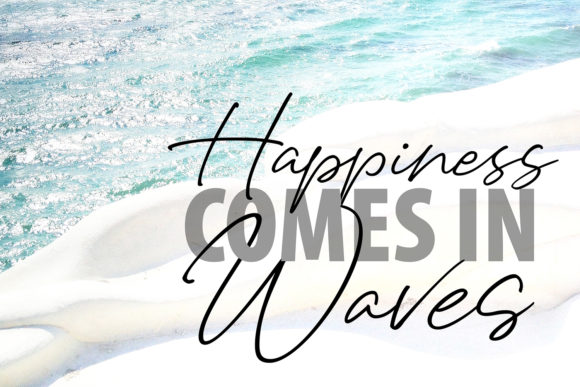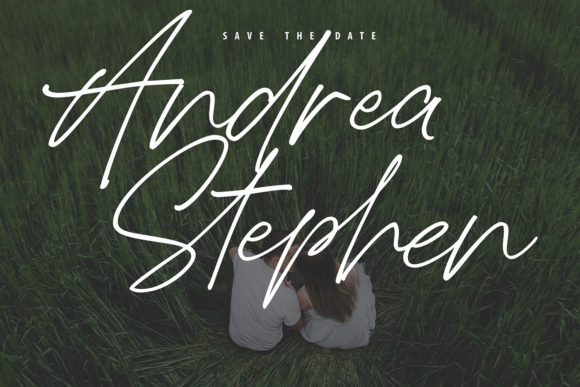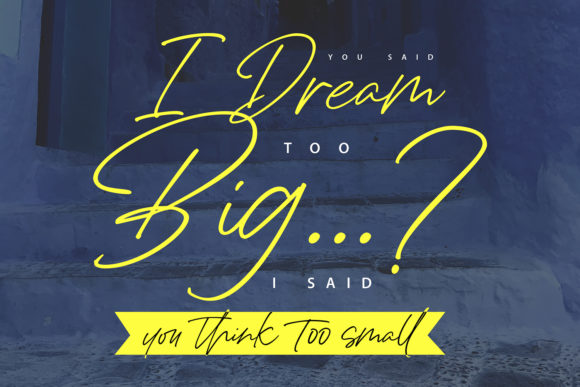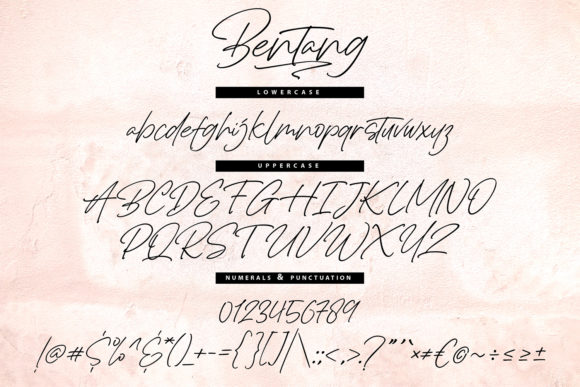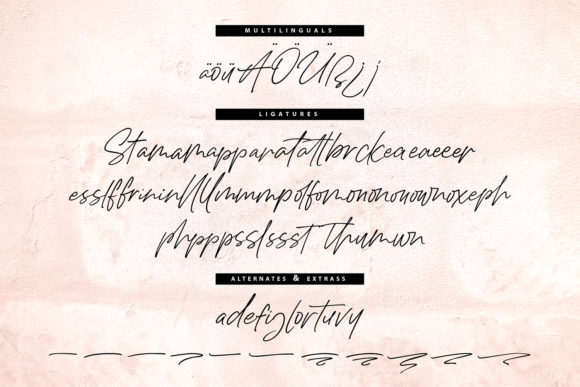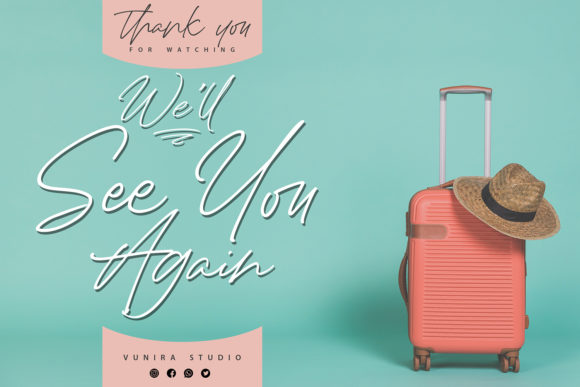
Bentang Font: Elevate Your Designs with this Delightful Handwritten Font
Are you tired of using the same old fonts in your designs? Look no further than Bentang Font, a delightful and flexible handwritten font that’s sure to take your creations to the next level. In this article, we’ll dive into the features and benefits of Bentang Font, and explore how it can become an incredibly valuable asset in your font library.
What is Bentang Font?
Bentang Font is a beautifully crafted handwritten font that’s perfect for designers and crafters looking to add a personal touch to their work. With its unique and elegant style, Bentang Font is versatile enough to be used in a wide range of projects, from branding and advertising to packaging and digital media.
One of the standout features of Bentang Font is its PUA (Private Use Area) encoding. This means that you can easily access all of the font’s glyphs and swashes, giving you complete creative control over your designs. With PUA encoding, you can effortlessly navigate the font’s extensive character set, including ligatures, alternates, and ornaments.
A Font for Every Project
No matter the topic or theme, Bentang Font is an incredibly adaptable asset to have in your font library. Its elegant and approachable style makes it perfect for a wide range of projects, including:
- Branding and logos: Create a unique and memorable brand identity with Bentang Font’s distinctive style.
- Digital media: Add a touch of personality to your website, social media, or email marketing campaigns.
- Packaging: Stand out on store shelves with eye-catching packaging designs that showcase your brand’s personality.
- Stationery: Create beautiful and professional-looking stationery, including business cards, letterheads, and invoices.
Benefits of Using Bentang Font
So why choose Bentang Font for your next project? Here are just a few benefits of using this amazing font:
- Unique style: Bentang Font’s distinctive style will help your designs stand out from the crowd.
- Flexibility: With its PUA encoding and extensive character set, Bentang Font can be used in a wide range of projects and applications.
- High-quality design: Bentang Font is designed to the highest standards, ensuring that your designs look professional and polished.
Who is Bentang Font for?
Bentang Font is perfect for designers, crafters, and DIY enthusiasts who want to add a personal touch to their work. Whether you’re a seasoned professional or just starting out, Bentang Font is an excellent addition to your font library. This font is ideal for:
- Graphic designers looking for a unique and versatile font for their next project.
- Crafters and DIY enthusiasts who want to add a personal touch to their handmade projects.
- Small business owners who want to create a distinctive brand identity.
In conclusion, Bentang Font is a delightful and flexible handwritten font that’s sure to elevate your designs. With its PUA encoding, extensive character set, and elegant style, Bentang Font is an incredibly valuable asset to have in your font library. Whether you’re a designer, crafter, or DIY enthusiast, Bentang Font is the perfect choice for anyone looking to add a personal touch to their work.